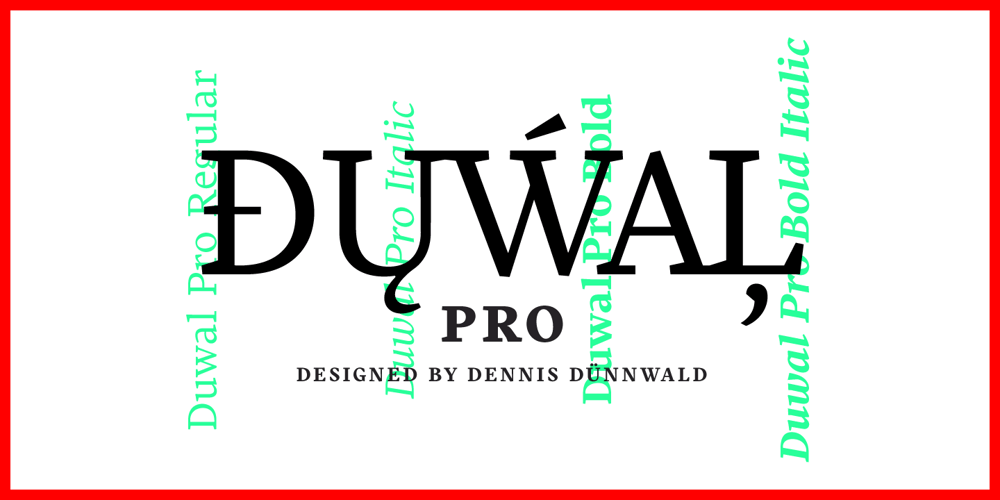
Duwal Pro Font Family was designed by Dennis Dünnwald and published by Volcano Type. Duwal Pro contains 4 styles and family package options. The careful balance between the emotional swings and shapes set in strong contrast such as the burly serifs, or generally vertical and orderly appearance within the Duwal Pro determine the special look of this Antiqua typeface. All characters of the Duwal Pro are designed to be open and accessible. The lowercase letters are designed with a large x-height, which is why they are ideal for small font sizes. Many striking details give Duwal Pro a defined and firmer appearance with increasing font size so it is also suitable for use in headlines and work marks. The deliberately constructed and emphasized design of the serifs give the font a strong position and at the same time force the reading direction. Using Duwal Pro in Bold weight, the serifs look clearly striking, the design language is concise and the typeface receives an additional sympathetic force. The Italic weight draws on the expressive but not intrusive design of the Regular, but appears sharper and is ideal for text passages. The font family contains italics, small caps, lots of ligatures, swashes, another format set, contextual alternatives and special characters as well as other open-type features which allow the use of Duwal Pro in 48 languages.